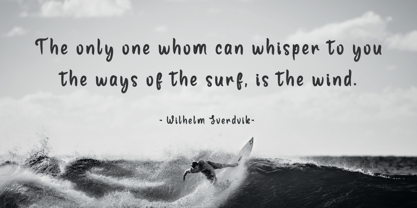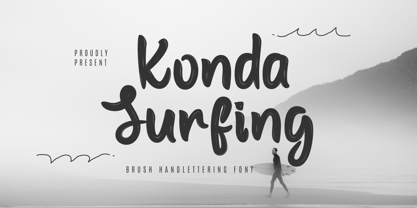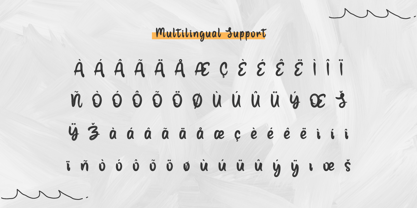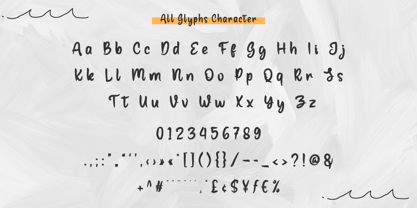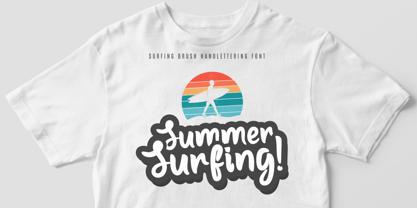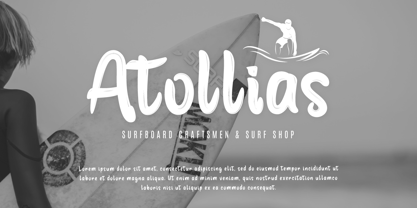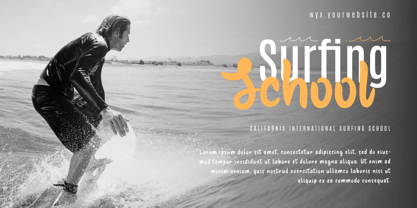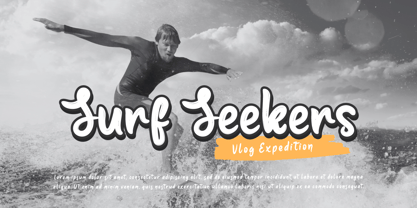
Konda Surfing
The Konda Surfing Font Family was designed by Lita Faolina and published by Product Type. Konda Surfing contains 1 styles. More about this family
Konda Surfing is a brush handwritten font that captures the spirit of adventure. Its bold, dynamic characters are perfect for designs that require a touch of excitement and energy. Whether you’re creating a logo for an outdoor brand or a headline for a travel blog, Konda Surfing adds a touch of adventure that is sure to captivate your audience.